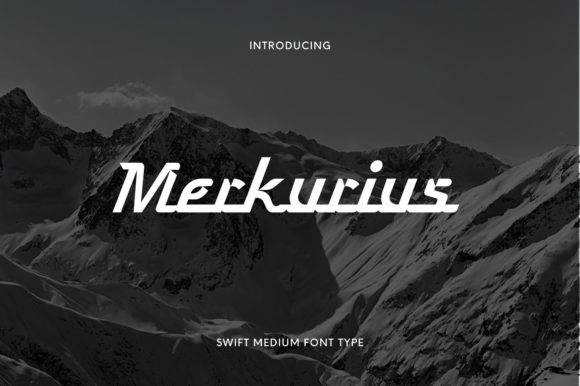
Introducing Merkurius Font, your go-to font for leaving an unforgettable impression. Its bold and striking characters, evocative of vibrant brushstrokes, will catapult your designs to new heights.
Merkurius is not just a font; it's a versatile chameleon, transforming itself effortlessly to suit your every creative whim. Whether you seek an artistic flair for your latest masterpiece or a distinctive voice for your brand, Merkurius adapts seamlessly.
Its strong and assertive nature is perfectly balanced by an undercurrent of fluidity, thanks to its smooth and sharp edges. These striking contrasts create a captivating visual symphony that demands attention and lingers in the memory.
Unleash your imagination and let Merkurius become the cornerstone of your artistic endeavors. It's the perfect font for adding a touch of audacity to your posters, flyers, and social media posts. Its bold presence will ensure your message cuts through the noise and resonates with your audience.
Dive into the world of Merkurius Font, where creativity knows no bounds. Let its vibrant energy ignite your designs and elevate your brand to new heights.